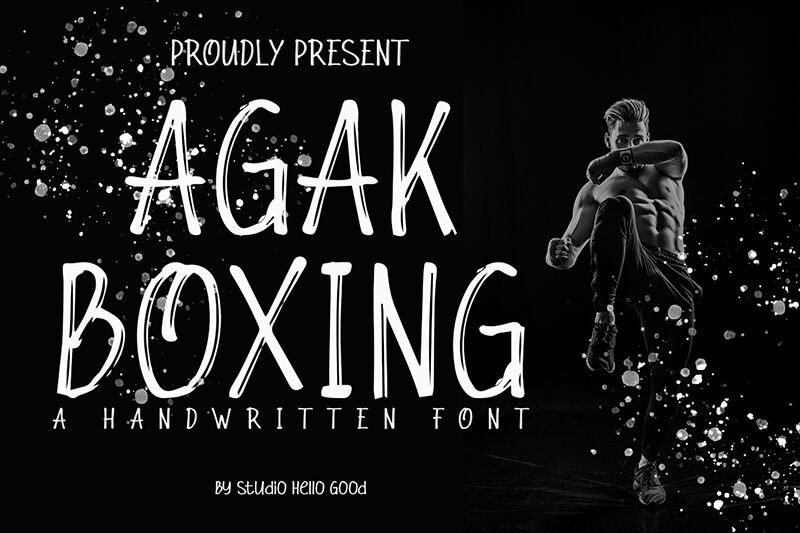
Agak Boxing font by Studio Hello Good is a free handwritten brush font that welcomes readers with an informal, casual, and dynamic design. The friendly characters feature a modern writing style that is organic, artistic, and suitable for versatile use. This handsome font is an appealing choice if you want to add an approachable human touch to your texts.
Use Agak Boxing in headings and subheadings, magazine covers, posters, T-shirt prints, branding and packaging designs, restaurant menus, labels, and more. The dynamic style of this font can be nicely applied in handwritten quotes as well.